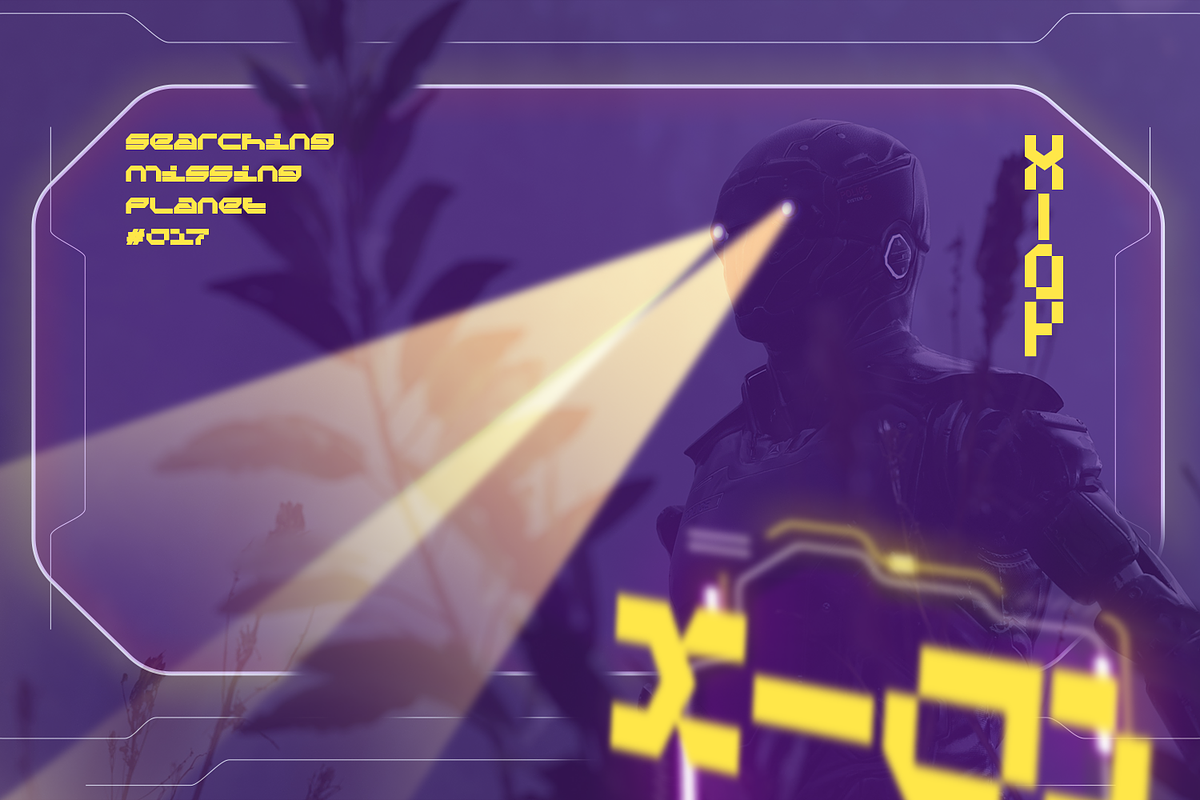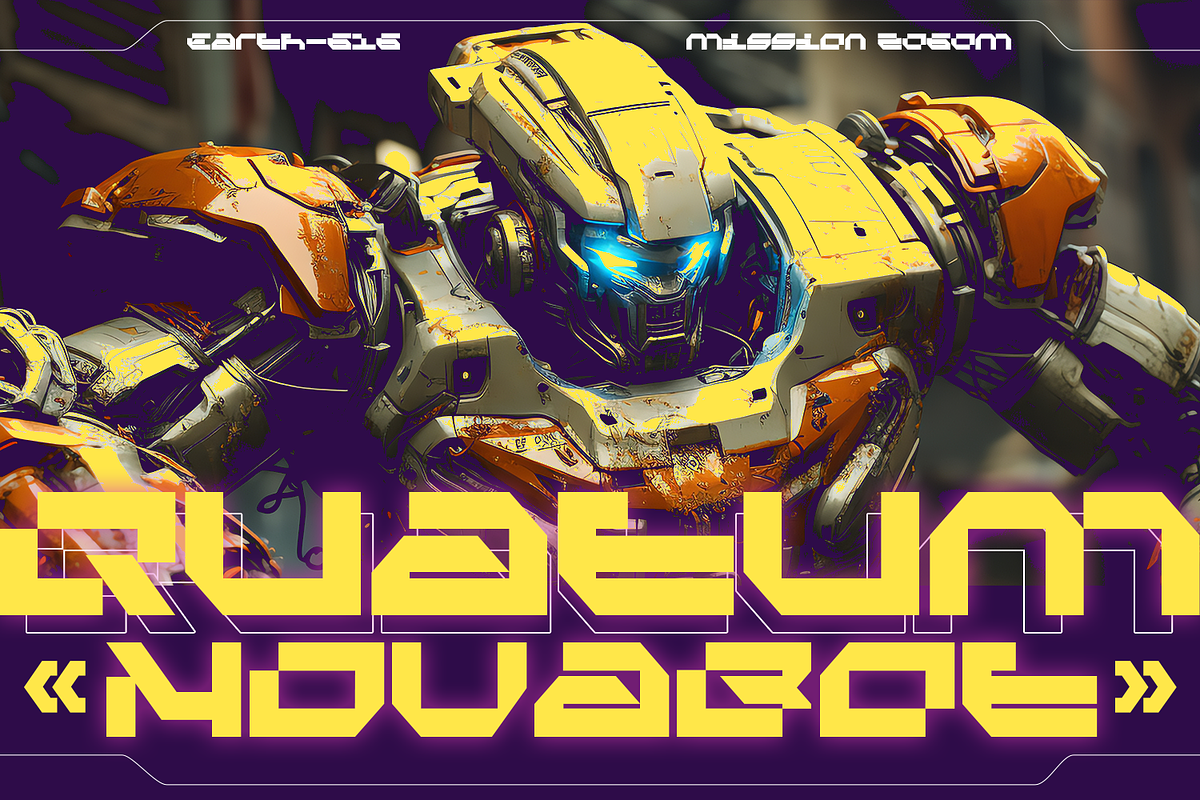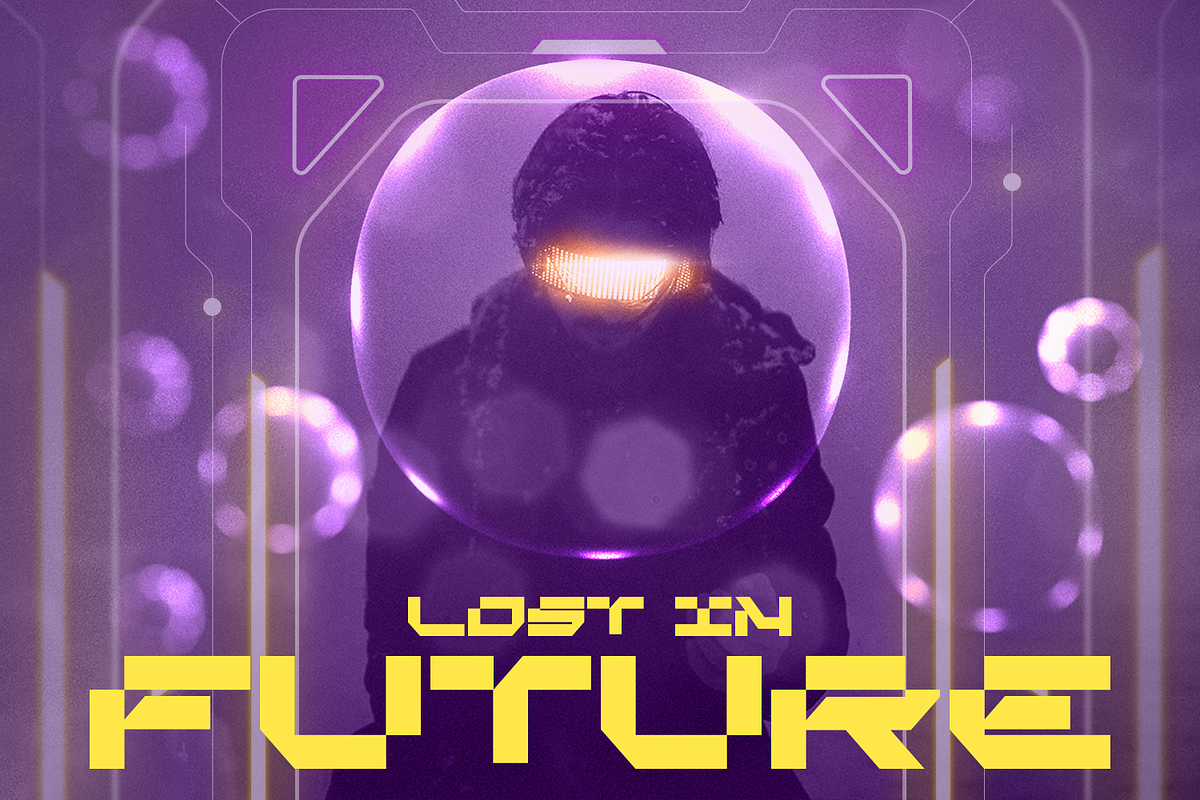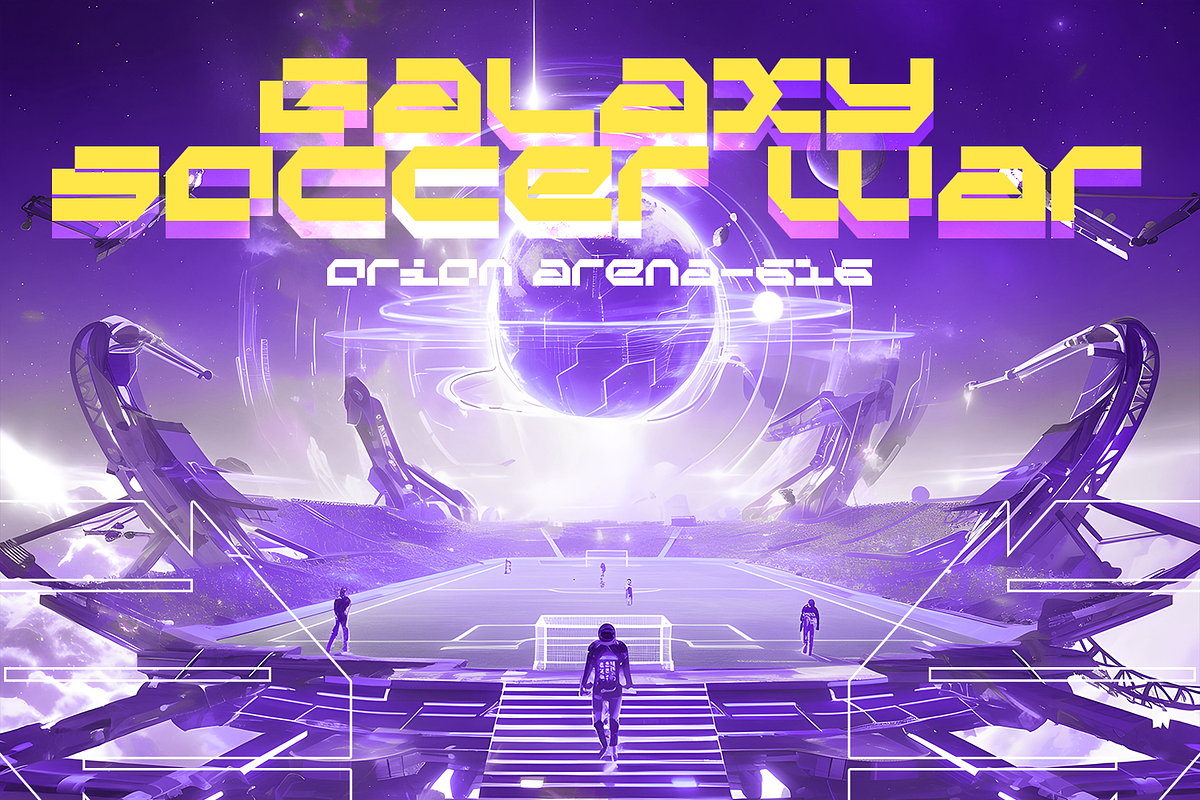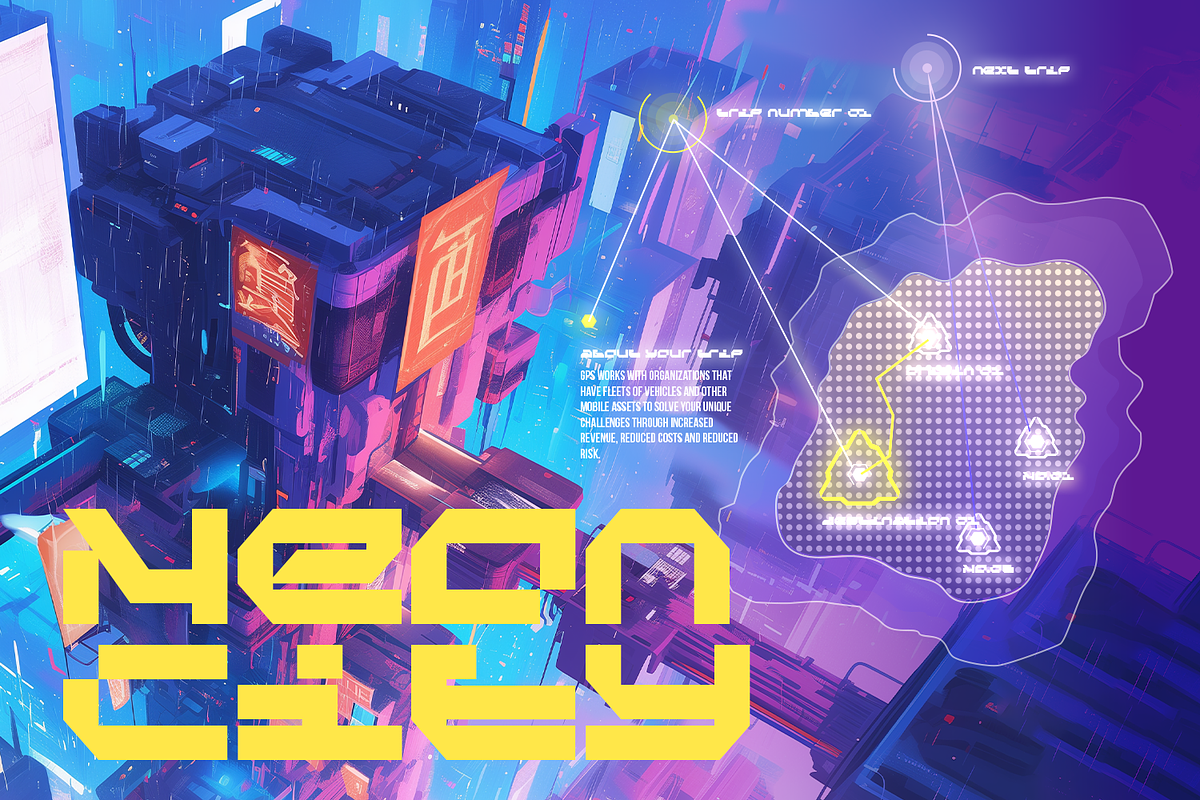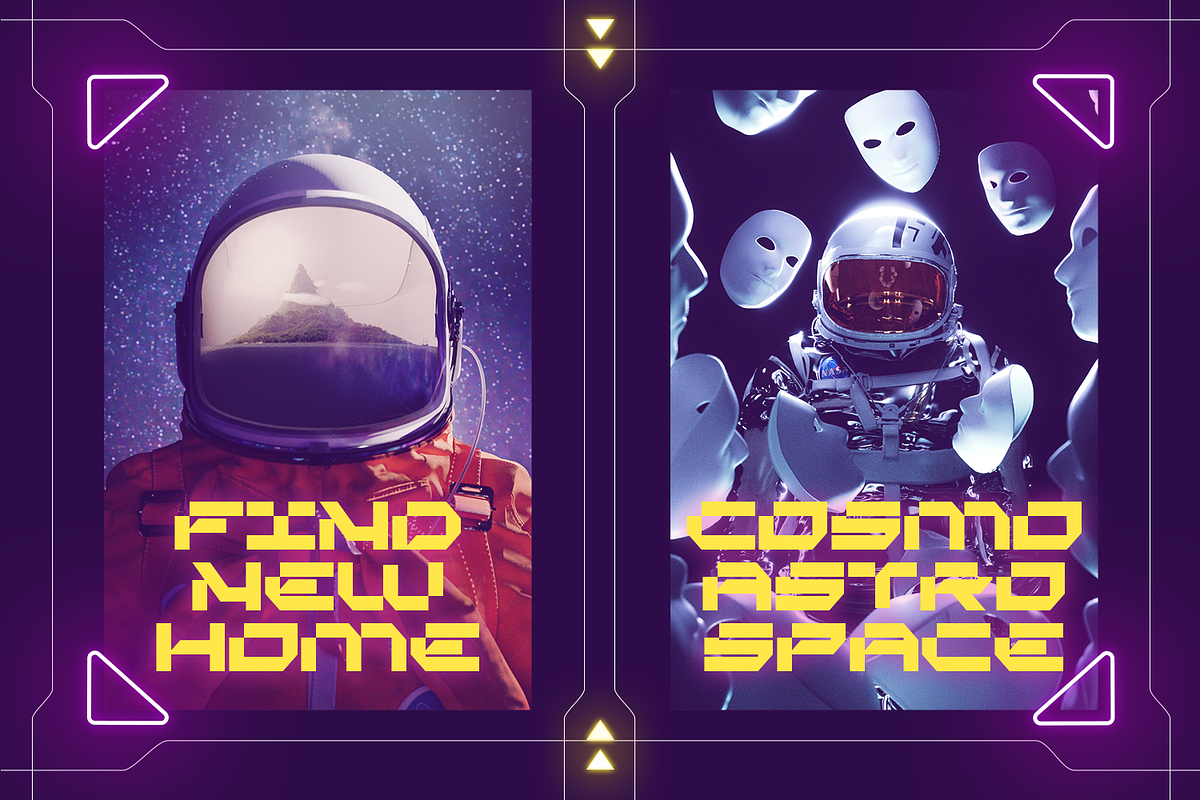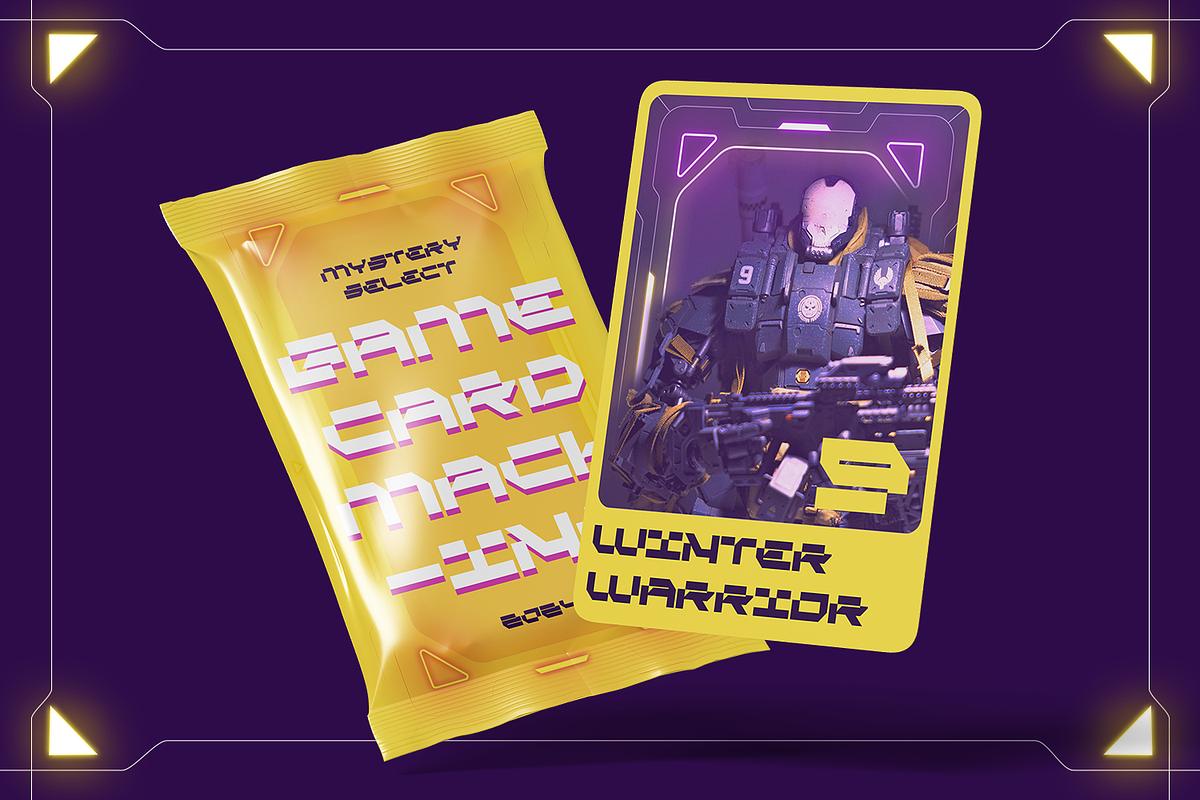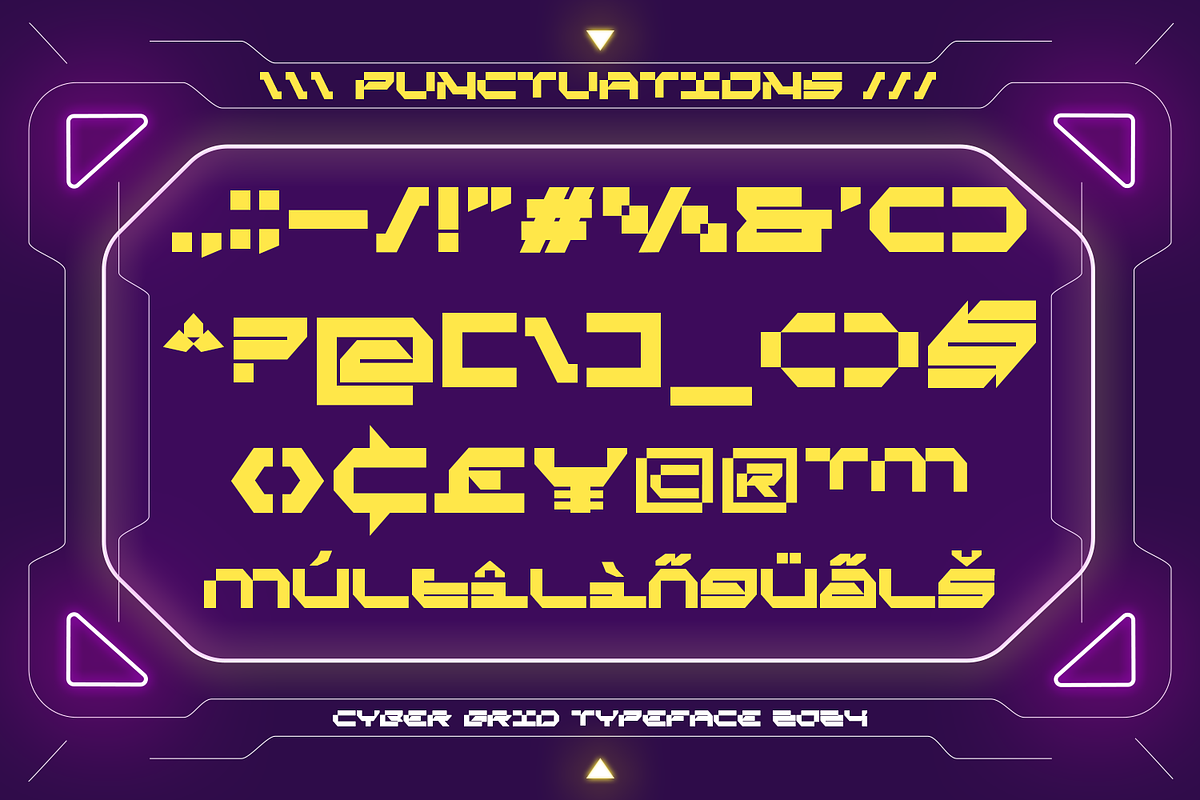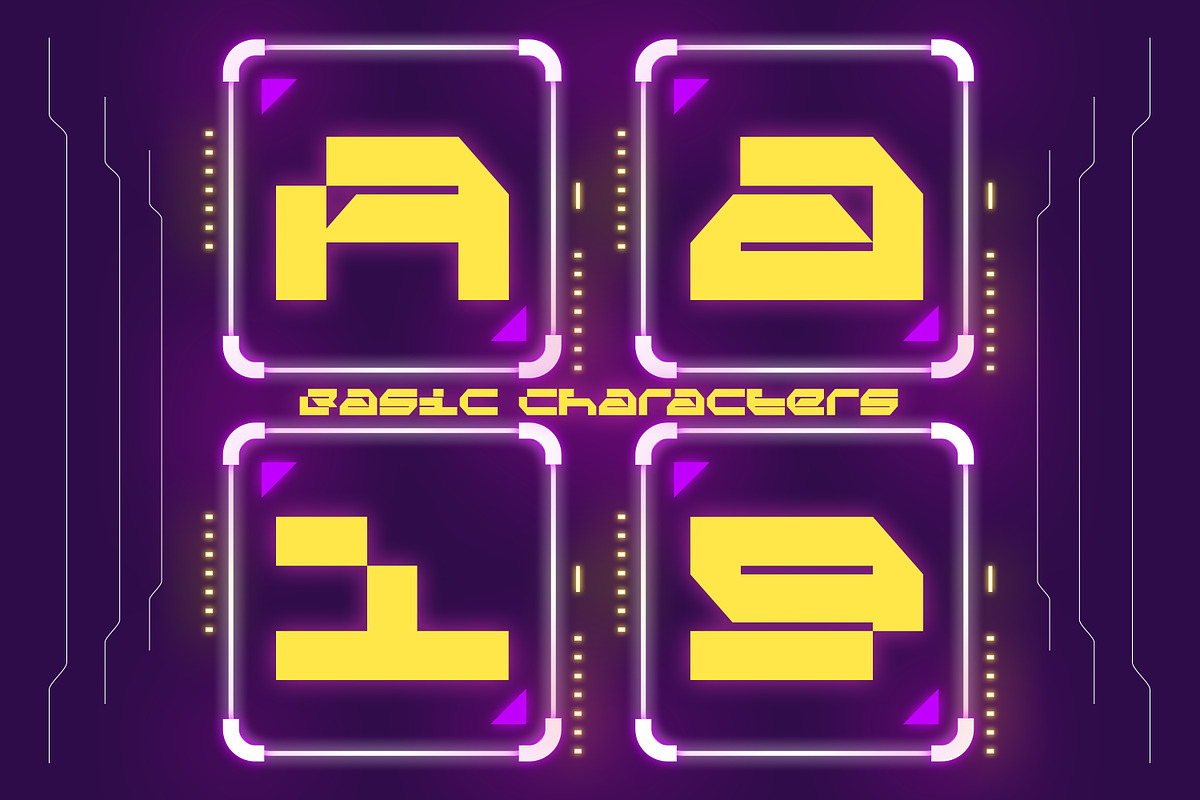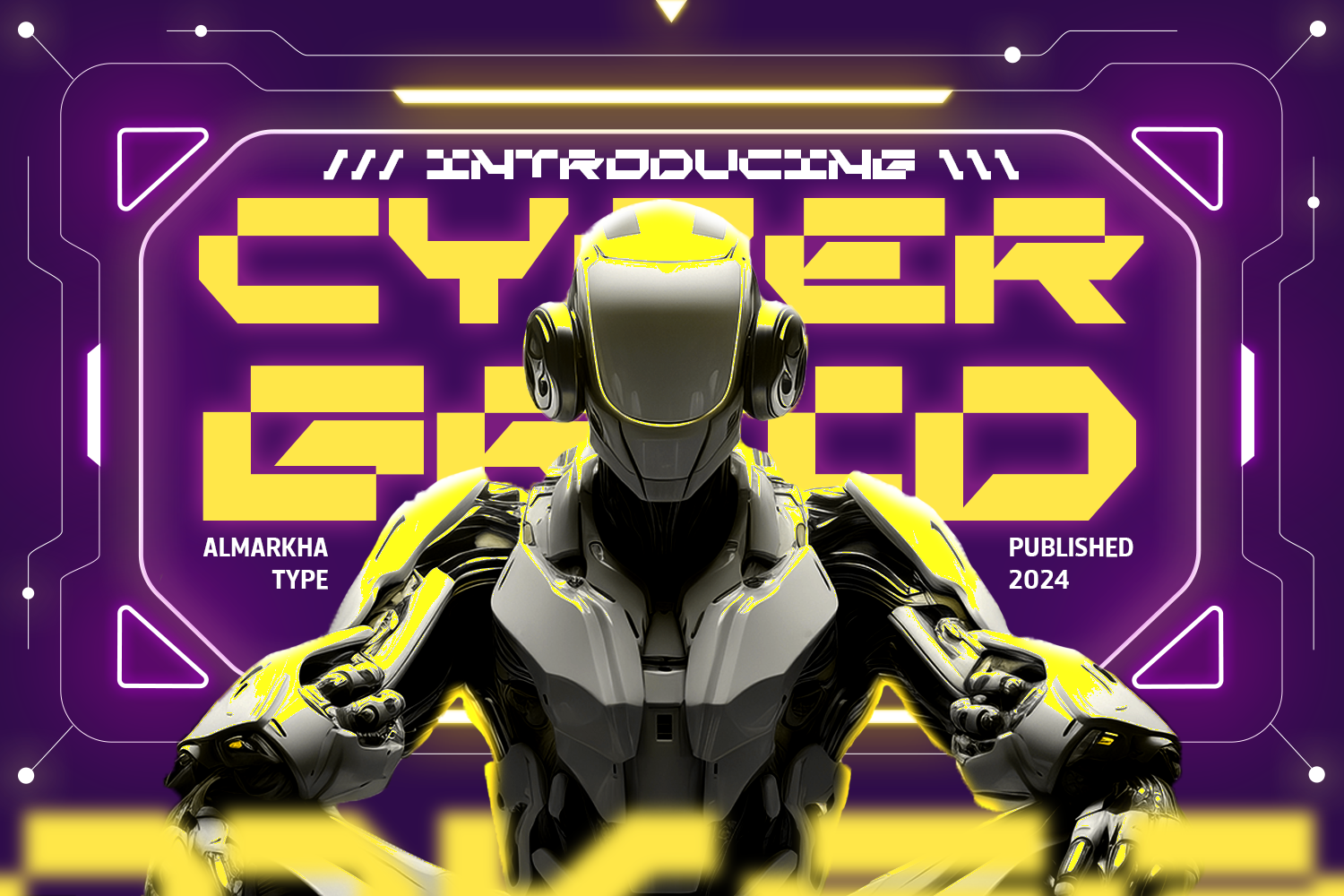
Cyber Grid - Cyber Crypto Font
Introducing Cyber Grid, well design font that is inspired by mecha, technology, future, criypto, and cyber. This font was created to be outstanding, giving a modern look and futuristic that is suitable for blockchain website style, apps, and so on.
Cyber Grid is an ideal choice for logos, headlines, and branding materials. It’s an all-caps design which means uppercaps and lowercase have similar sizes but with different styles. It makes it easy to mix the letters to get the perfect ones.
Cyber Grid design makes it perfect for projects that require a strong and sturdy look, such as designing video game or movie titles, product packaging, or creating futuristic posters.
- Ligatures glyphs
- Alternate glyphs